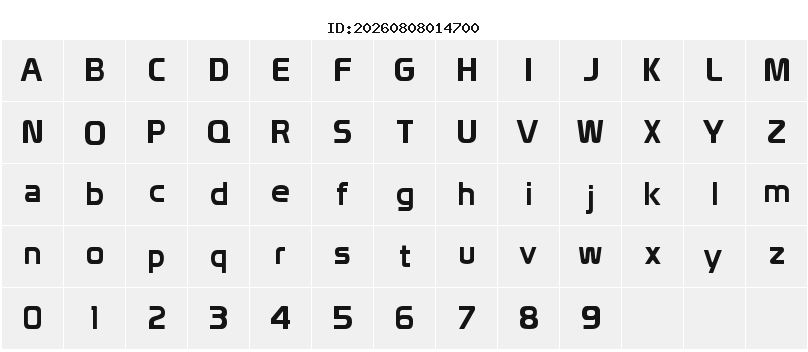
• Font Name: Prototype
Prototype.ttf is a modern, elegant sans-serif font designed for ultimate readability and visual harmony. Perfect for branding, headlines, web design, and print materials.